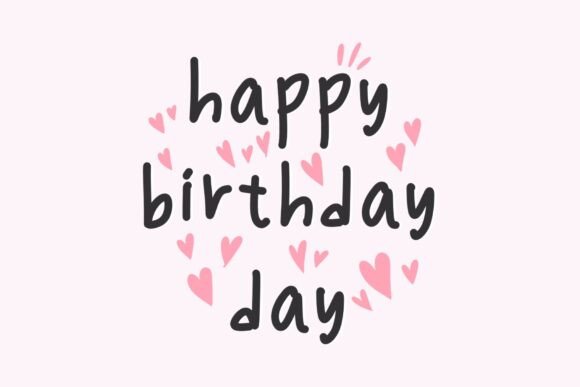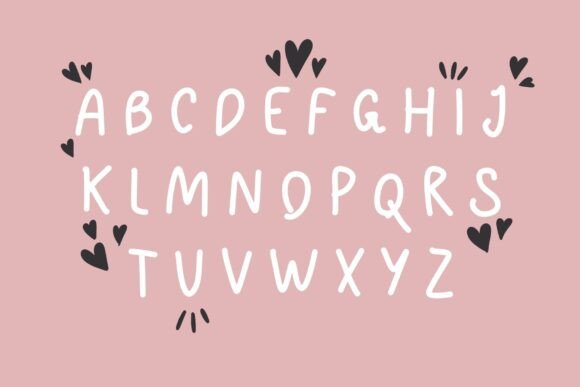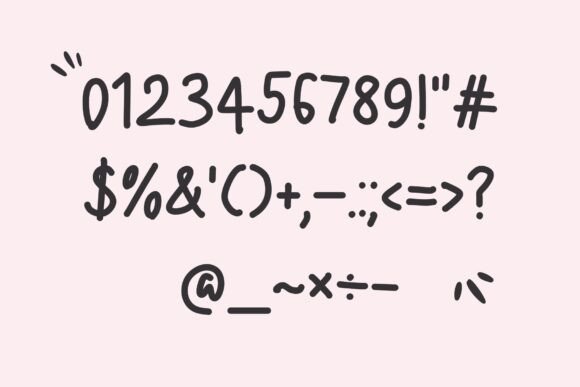
Lemonmilk Font
Introducing our cute and charming handwritten font — designed to capture the beauty of natural handwriting with a sweet, playful twist. Perfect for students, teachers, digital planners, and creatives who want to add a personal, cozy feel to their notes, projects, and designs. Whether you’re writing in Goodnotes, designing a logo, crafting a social media post, or making the perfect planner spread, this font brings warmth and a touch of magic to every word. Make your creations even more delightful with a font that’s as unique and lovable as you are!